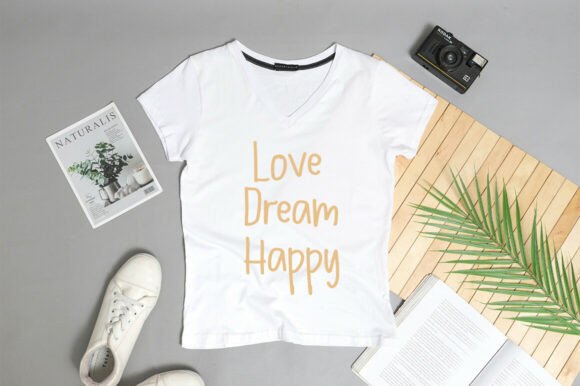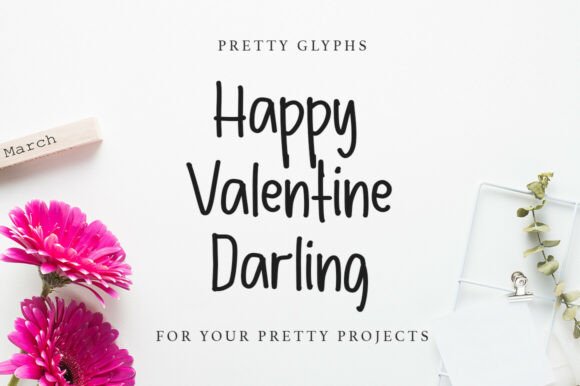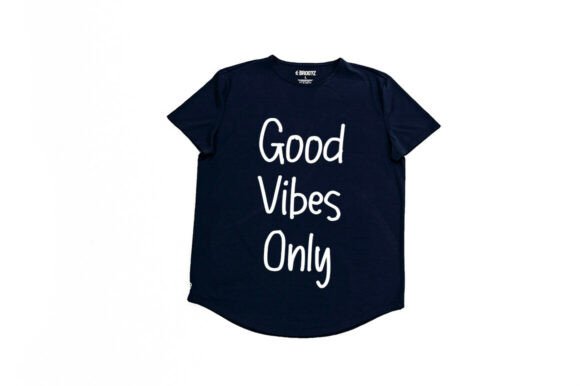
Introduction to Quicknotes Font
Imagine yourself staring at a blank canvas, your creative juices flowing, and your mind bursting with innovative ideas. You’re on the cusp of bringing your vision to life, but something’s missing – a font that captures the essence of your artistic expression. That’s where the Quicknotes Font comes in – an artisanal handwritten brush font that embodies boldness, expressiveness, and understated elegance.
With its genuine brush lettering style, this font transports you to a world of raw strokes and vigorous motion, reminiscent of handcrafted calligraphy. Every nuanced texture elevates the visual prowess of any project, making it a valuable asset for designers seeking to add a personal touch to their creative endeavors. Whether you’re working on a high-quality design project or need a free download to spice up your social content, the Quicknotes Font is an exceptional design resource that infuses your narrative with an assured, creative, and indelible allure.
Key Features of Quicknotes Font
- High-quality, modern design perfect for creative projects, with a clean and minimalist aesthetic.
- Designed to be versatile and suitable for a wide range of applications, from digital interfaces to print materials.
- Includes a range of weights and styles, from light to bold, to cater to different design needs and preferences.
Honest Review: Quicknotes Font
I recently had the chance to work with the Quicknotes Font, and I must say, it’s been a great addition to my design toolkit. ✨ The font is a high-quality, versatile design resource that’s perfect for creative projects that require a bit of flair.
One of the things I love about Quicknotes Font is its clean and modern aesthetic. It’s easy to read, even on a transparent background, which makes it perfect for designing digital products or websites. The font is also incredibly versatile, and I’ve found it works well for everything from headlines to body text.
While the Quicknotes Font is a great addition to my design toolkit, I do have a few minor complaints. ⚠️ The font could benefit from a bit more character variations, and I’ve found it doesn’t work as well in print design as it does in digital design.
Overall, I’m really impressed with the Quicknotes Font, and I would highly recommend it to any designer looking for a high-quality, versatile font for their creative projects.
Quicknotes Font
The Quicknotes Font is a high-quality design resource ideal for creative projects that require a clear and readable font. With its transparent background, this font is perfect for overlaying text on images or using as a standalone text element.
Tips for Getting the Most Out of Quicknotes Font
For the best results, use the Quicknotes Font on a high-quality image with a transparent background. You can also experiment with different font sizes and colors to create a unique design.
Common Use Cases for Quicknotes Font
The Quicknotes Font is ideal for a variety of creative projects, including:
- Presentation slides
- Document templates
- Blog posts